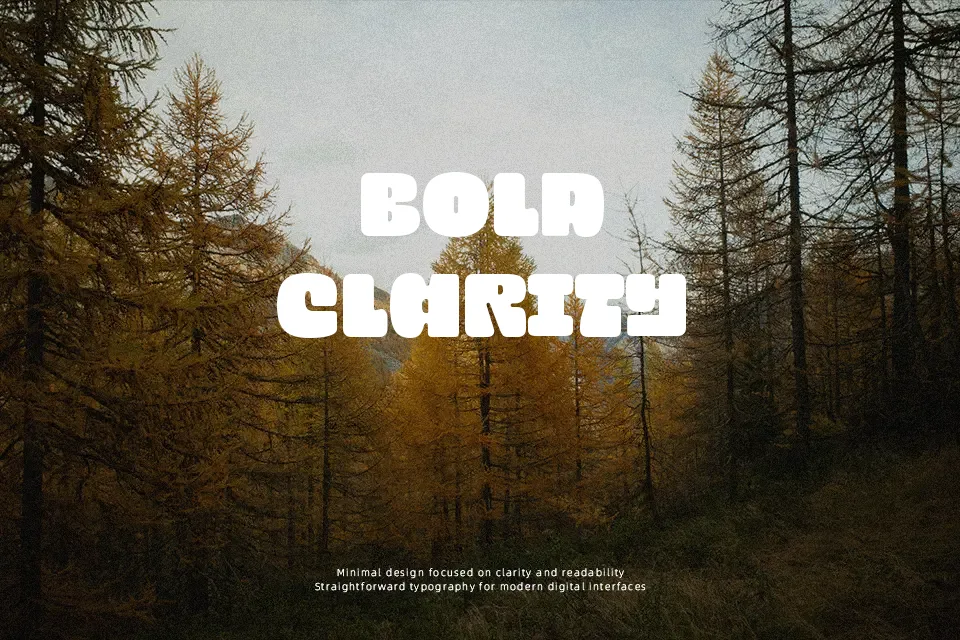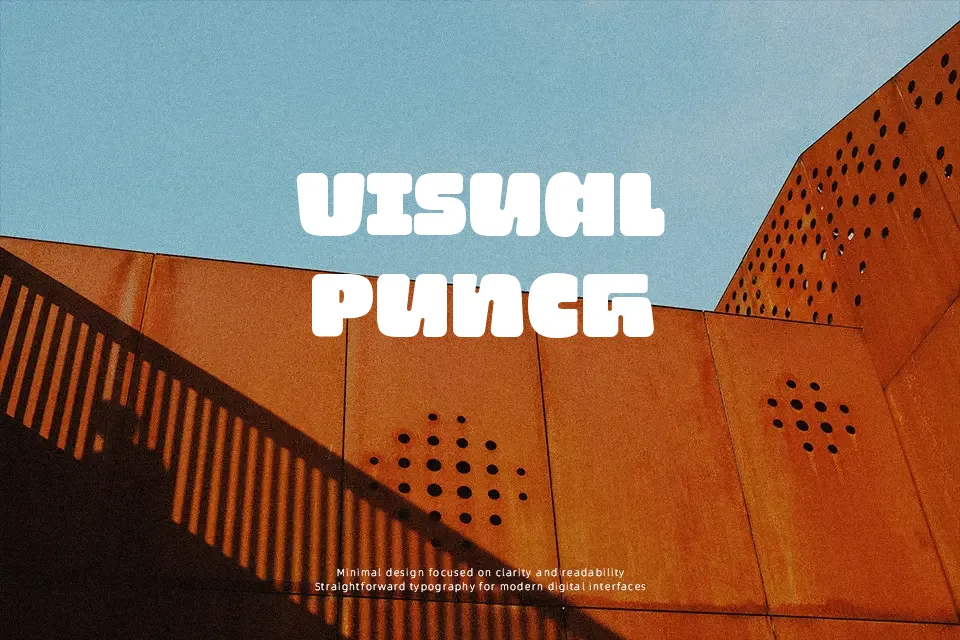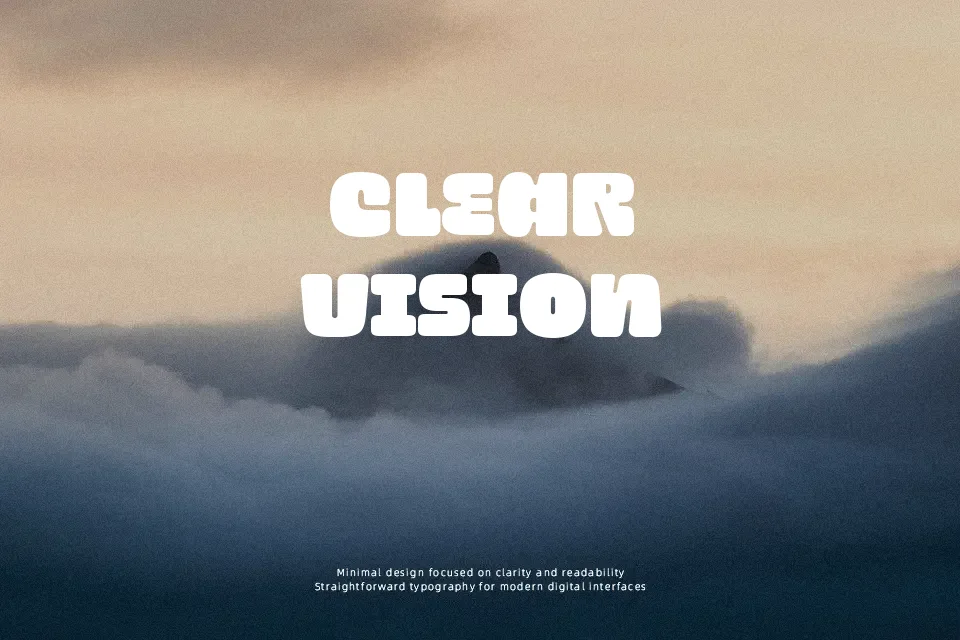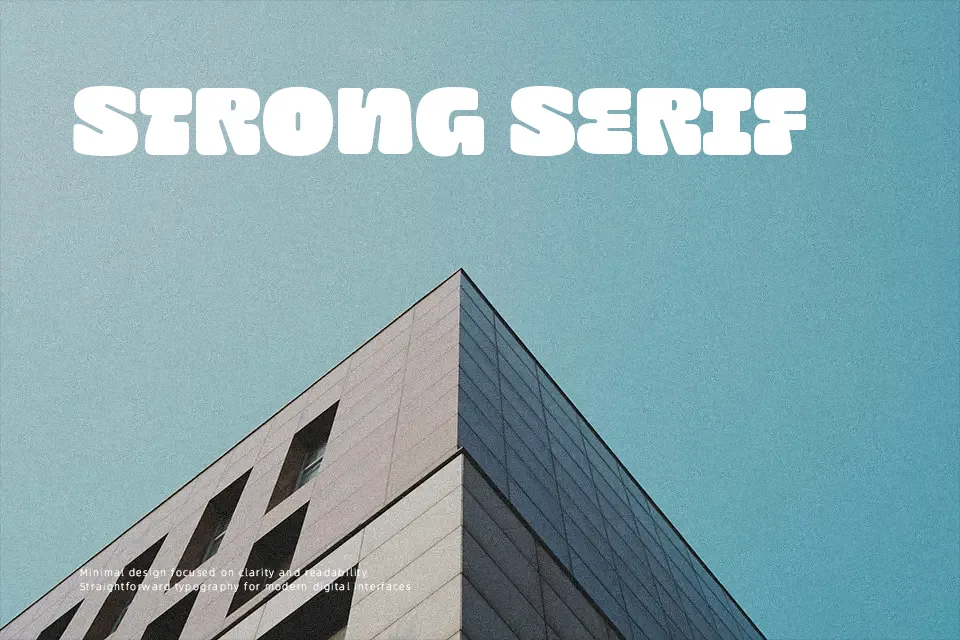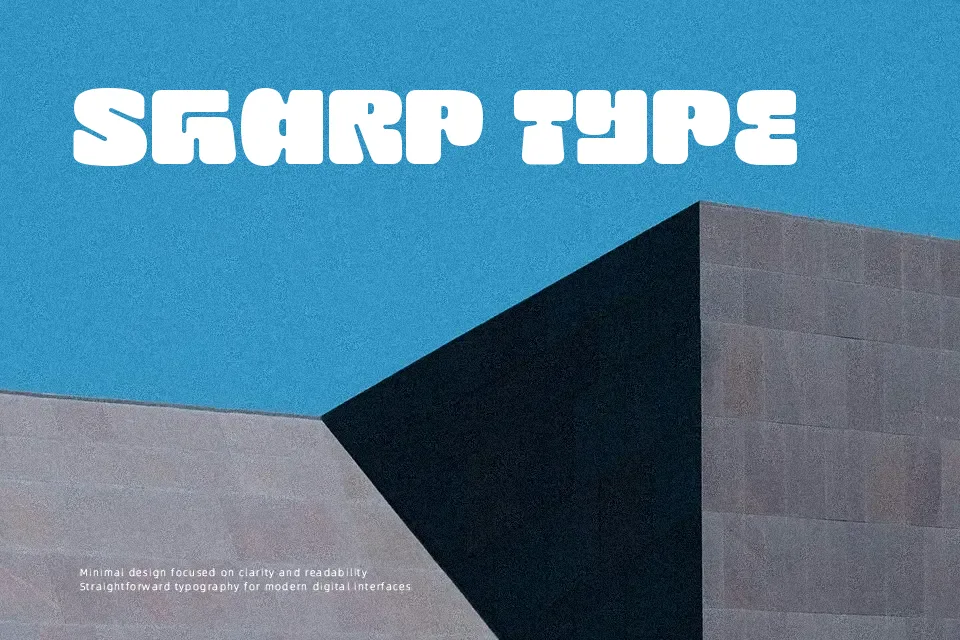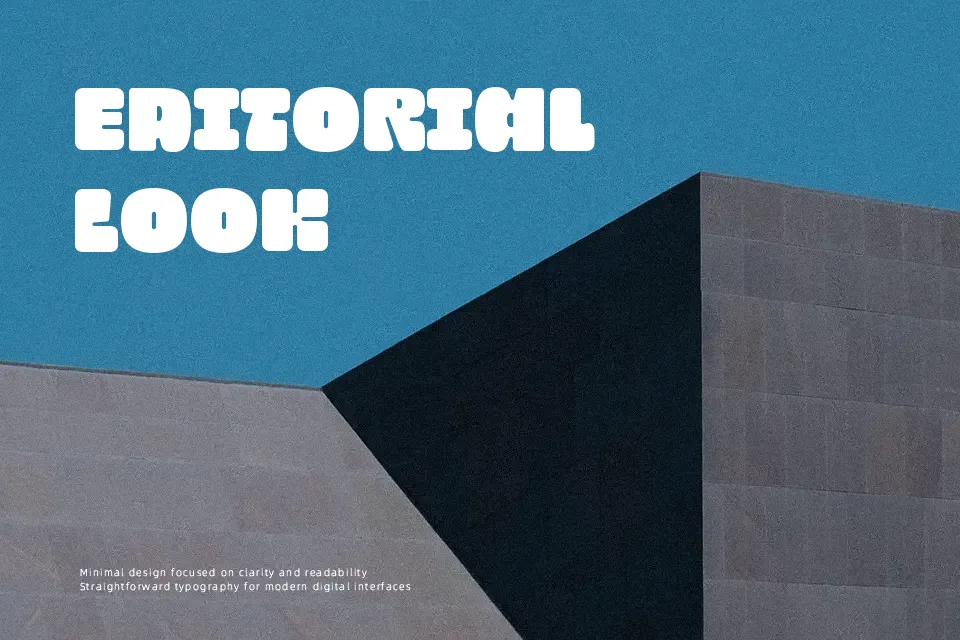
SG Noxville Font
Designed by Studio Gulden
SG Noxville Font features ultra-heavy strokes, bulbous curves, and compact internal spaces that establish an unmistakable groovy presence. The letterforms display extremely low contrast, with thick, inflated silhouettes and tight character spacing designed to maximize visual density. In large display formats, the design commands attention across festival merchandise, sticker graphics, and energetic headline treatments where dramatic personality is essential. However, the swollen shapes and constricted counters significantly reduce legibility at reduced sizes, making the typeface ineffective for continuous text or structured body copy. The bold anatomy provides excellent focal weight for short titles but demands generous surrounding negative space to prevent visual clutter.
Best For: music festival posters, retro apparel graphics, sticker merchandise, headline banners
Not Ideal For: long paragraph text, mobile user interfaces, small caption labels, corporate documents
Perfect for headline, logo, and music, with a bold and decorative style.